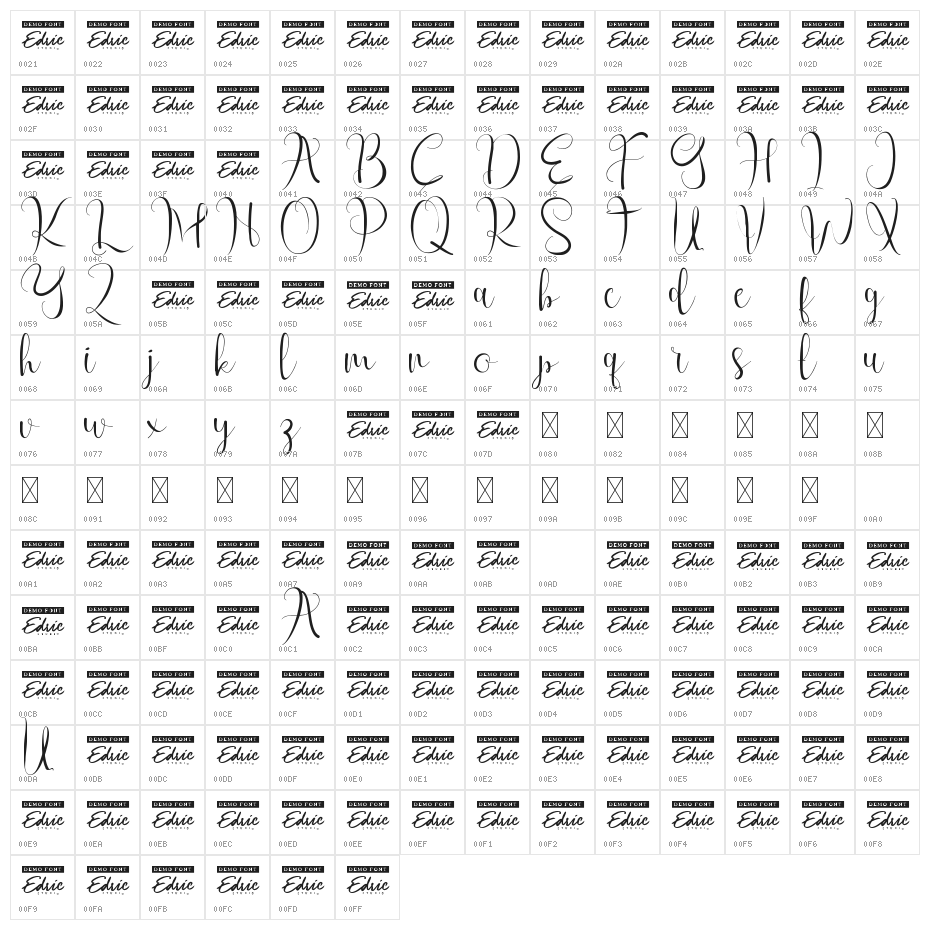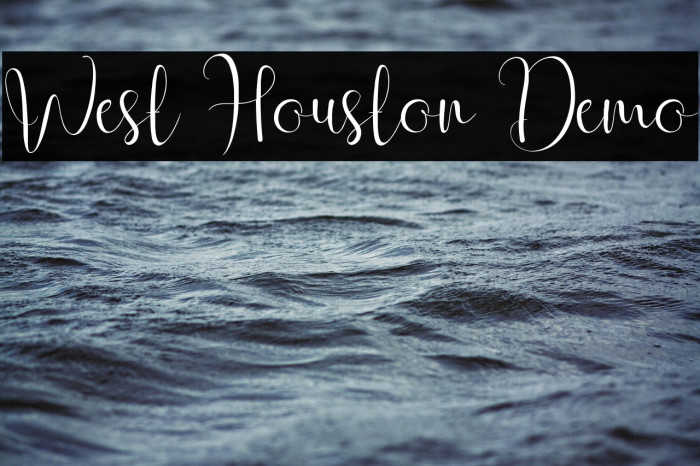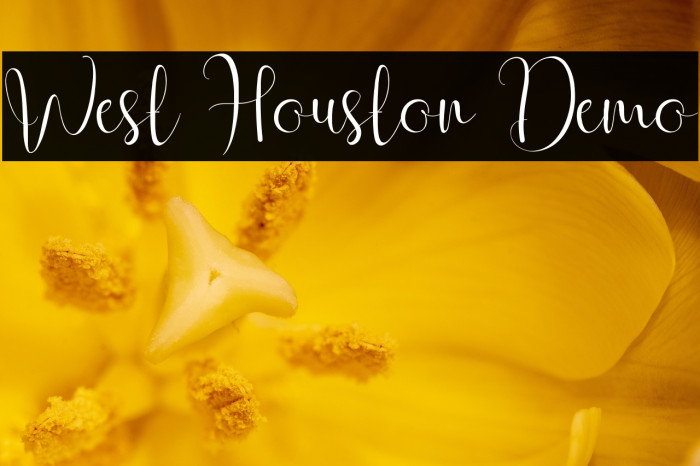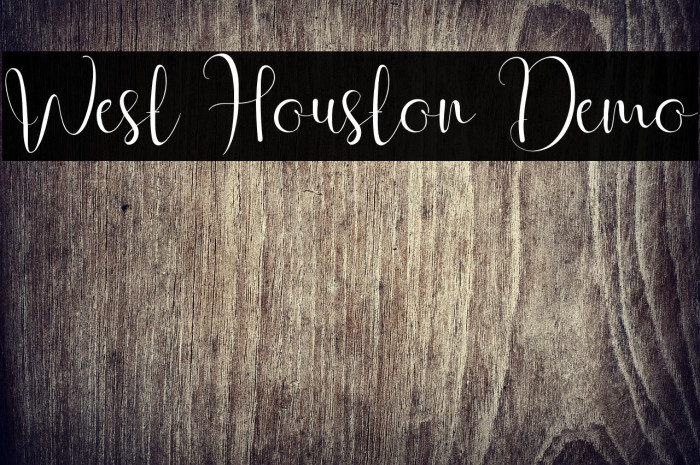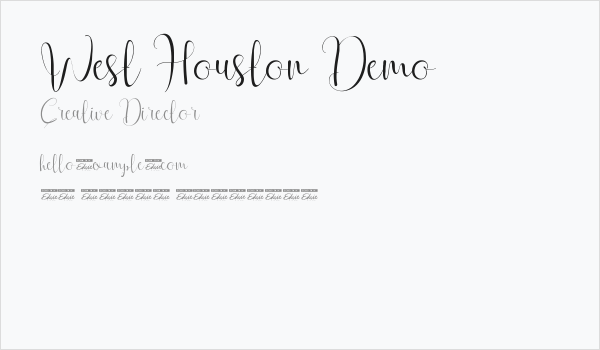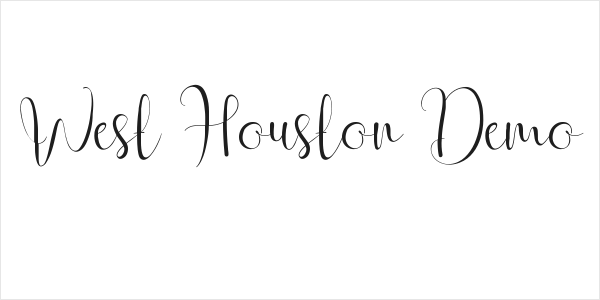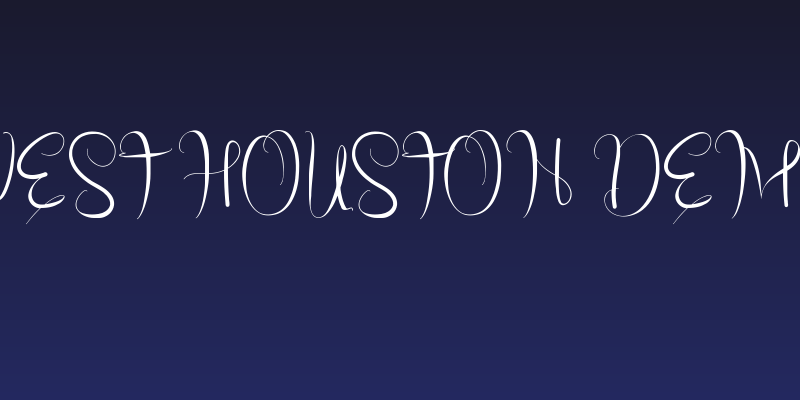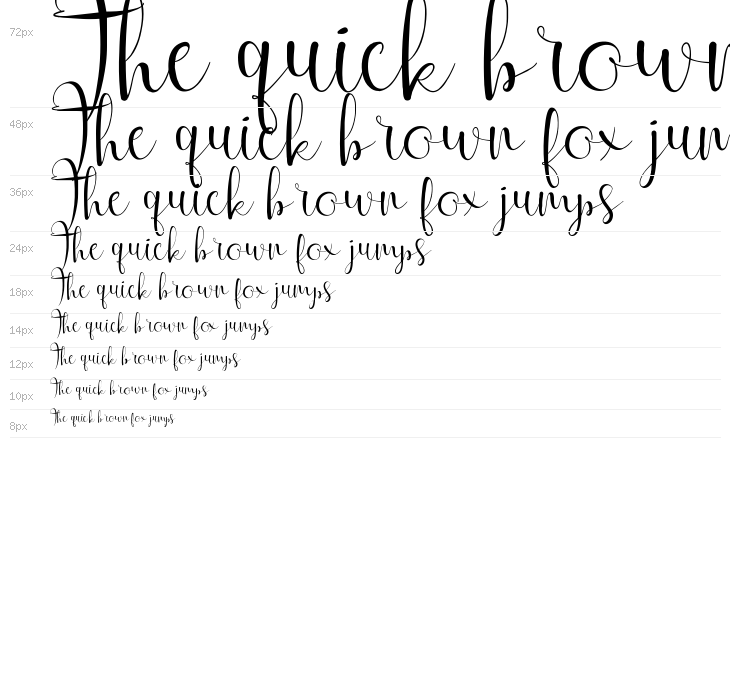
West Houston Demo Font
West Houston Demo Description
This font features an elegant and flowing script style, characterized by its smooth, cursive letterforms that convey a sense of sophistication and grace. The uppercase letters are tall and slender, with delicate loops and swashes that add a decorative touch. The lowercase letters maintain a consistent flow, with some characters extending below the baseline, enhancing the font's fluidity. The overall design is balanced, with moderate contrast in stroke thickness, giving it a refined appearance. This font is well-suited for projects that require a touch of elegance and style.